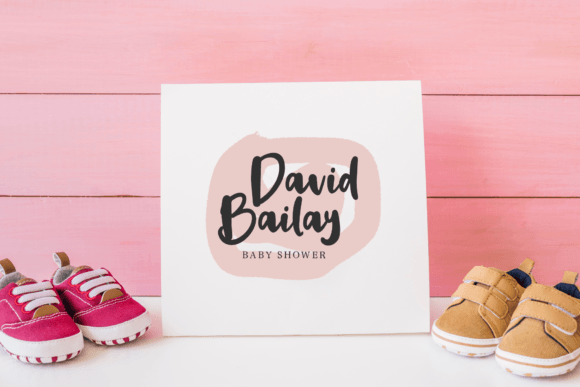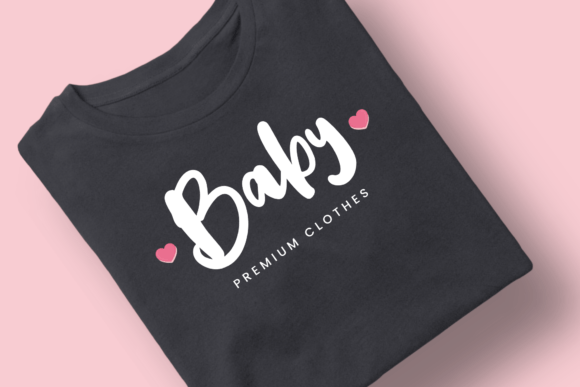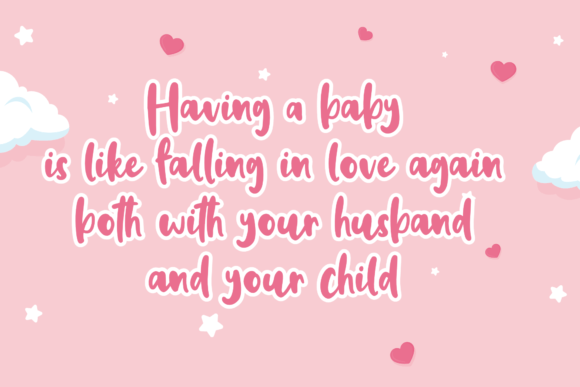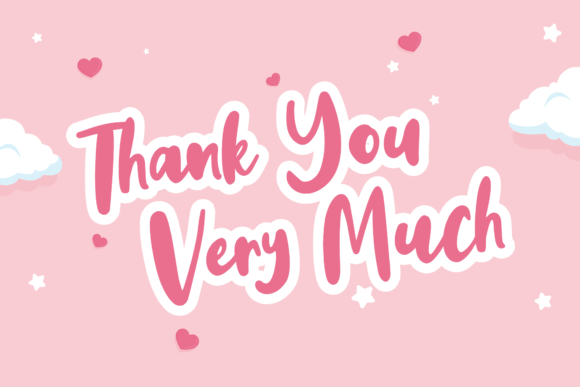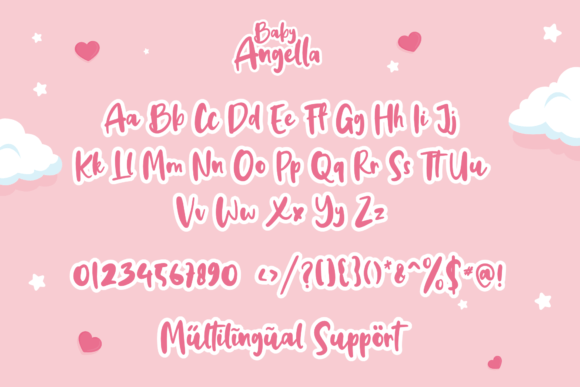
Baby Angella Font: The Ultimate Guide to Adding a Joyful Touch to Your Designs
Are you a designer or crafter looking for a font that can add a playful and charming touch to your creative projects? Look no further than the Baby Angella Font! This beautiful handwritten font is perfect for anyone who wants to infuse their designs with a sense of joy and whimsy. In this article, we’ll take a closer look at the Baby Angella Font, its features, and how you can use it to take your designs to the next level.
What is Baby Angella Font?
Baby Angella is a cute and charming handwritten font that is sure to capture the hearts of designers and crafters alike. Its playful and carefree vibe makes it perfect for a wide range of creative projects, from invitations and greeting cards to posters and social media graphics. With its unique and eye-catching style, Baby Angella Font is sure to make your designs stand out from the crowd.
Key Features of Baby Angella Font
So, what makes Baby Angella Font so special? Here are just a few of its key features:
- Cute and charming design: Baby Angella Font has a playful and whimsical design that is sure to add a touch of joy to your designs.
- Handwritten style: This font has a beautiful, handwritten style that gives it a personal and unique feel.
- Easy to read: Despite its playful design, Baby Angella Font is easy to read and understand, making it perfect for use in a wide range of creative projects.
- Versatile: This font can be used in a variety of contexts, from formal to informal, and is suitable for use in both digital and print designs.
How to Use Baby Angella Font in Your Designs
Now that we’ve covered the basics of Baby Angella Font, let’s take a look at how you can use it in your designs. Here are a few ideas to get you started:
- Invitations and greeting cards: Baby Angella Font is perfect for use in invitations and greeting cards, adding a playful and personal touch to your designs.
- Posters and flyers: This font is also great for use in posters and flyers, where its bold and eye-catching design can help grab attention.
- Social media graphics: Baby Angella Font can add a fun and playful touch to your social media graphics, helping you to stand out in a crowded online space.
- Crafting projects: If you’re a crafter, Baby Angella Font can be used in a variety of projects, from scrapbooking to DIY signs and decorations.
Tips for Getting the Most Out of Baby Angella Font
To get the most out of Baby Angella Font, here are a few tips to keep in mind:
- Experiment with different colors: Baby Angella Font looks great in a variety of colors, so don’t be afraid to experiment and find the perfect hue for your design.
- Pair with other fonts: This font pairs well with other fonts, so try combining it with a bold or serif font to add contrast and interest to your design.
- Use it sparingly: While Baby Angella Font is a beautiful font, it can be overwhelming if used too much. Use it sparingly to add a touch of whimsy to your design.
| Font Name | Baby Angella Font |
| Author | violatype |
In conclusion, Baby Angella Font is a beautiful and charming handwritten font that is sure to add a joyful touch to your designs. With its playful and carefree vibe, it’s perfect for use in a wide range of creative projects, from invitations and greeting cards to posters and social media graphics. By following the tips outlined in this article, you can get the most out of Baby Angella Font and take your designs to the next level.